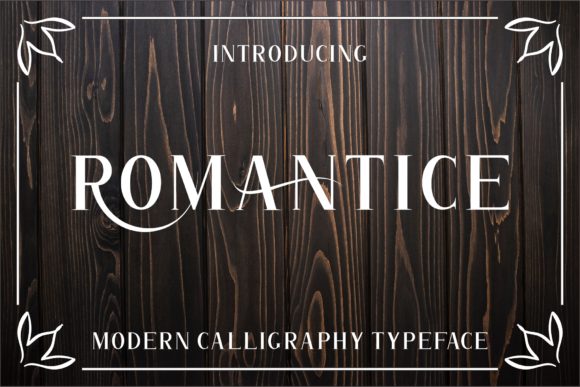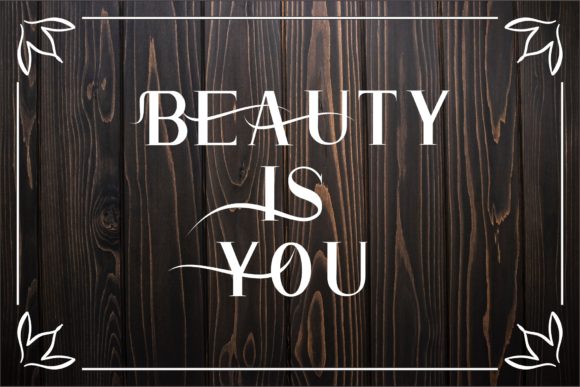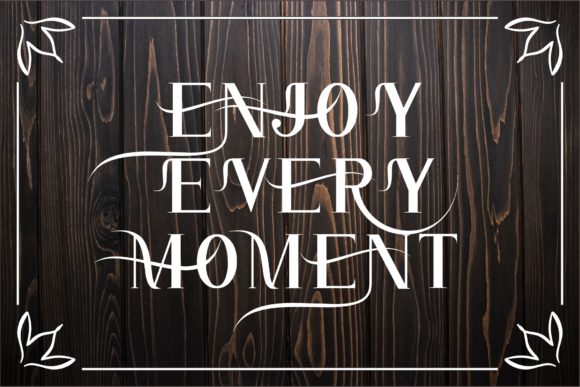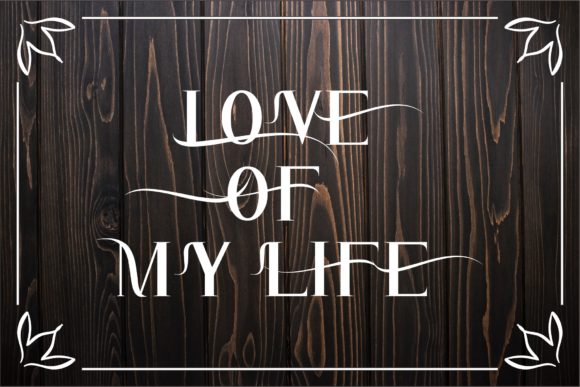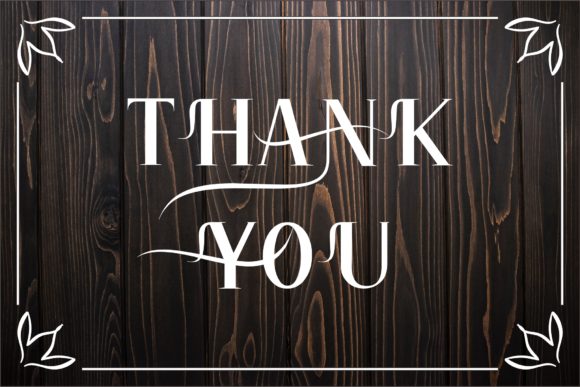
Romantice Font
The Romantice is a beautiful and modern typeface. It includes various swashes and alternates that will give your design a beautiful and interesting look.